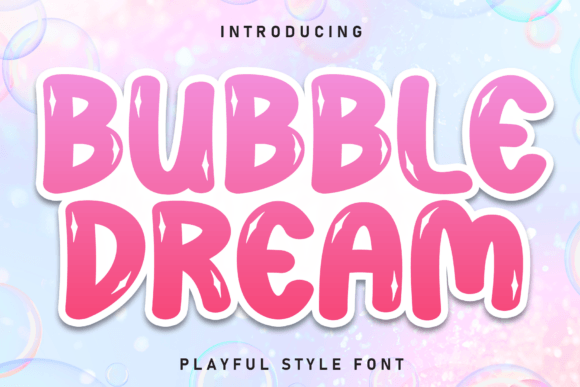
Bubble Dream Font
Bubble Dream is a playful font that looks like it’s made of soft, round bubbles. Its letters are big, rounded, and friendly, making it perfect for fun projects like kids’ books, party invitations, or anything that needs a cheerful touch. The bubbly style adds a sense of joy and lightness to your text!